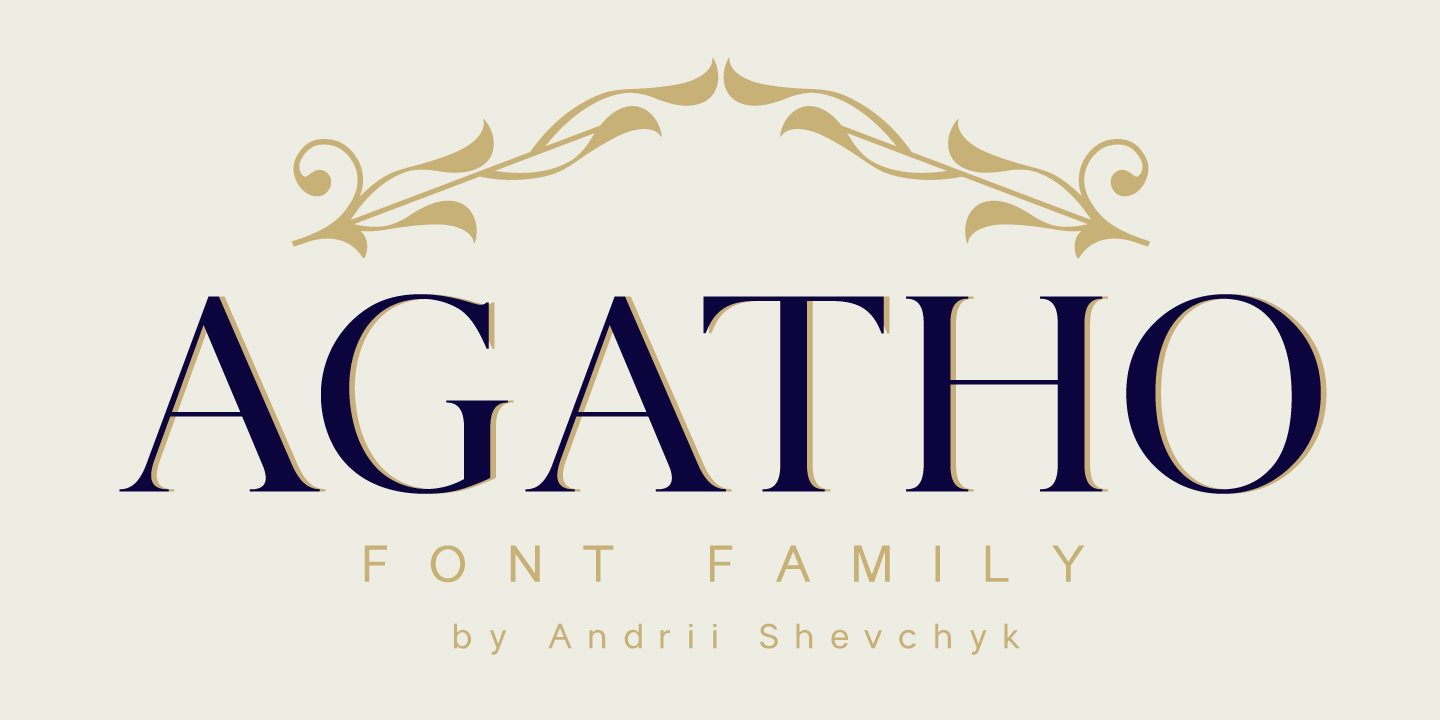
Agatho Font is perfect for philosophical publication designs, classical literature layouts, wisdom-inspired branding, ancient history materials, scholarly manuscript reproductions, contemplative book covers, philosophical journal headers, academic conference programs, spiritual retreat materials, and thoughtful editorial designs.
What makes Agatho Font so exciting is its philosophical elegance that embodies the timeless wisdom and intellectual depth associated with classical learning and contemplative thought. This typeface features refined letterforms with classical proportions and thoughtful construction that evokes the scholarly traditions of ancient philosophy and academic contemplation. The font's wise and sophisticated character communicates intellectual authority and contemplative depth, making it perfect for organizations seeking to establish connections with classical wisdom and appeal to audiences who value thoughtful discourse and the enduring power of philosophical inquiry.
Agatho Font family includes Regular, Bold, Light, and Italic weights, along with classical alternates and scholarly variations. The family also features special character sets including philosophical symbols, classical punctuation, and contemplative decorative elements that enhance the font's connection to wisdom traditions and scholarly discourse themes.
The Agatho Font Free Download package offers designers access to contemplative typography that brings philosophical sophistication to any scholarly project. This thoughtful typeface combines classical design principles with contemporary functionality, creating a powerful visual tool for wisdom-focused brands and contemplative organizations. Whether you're developing philosophical brand identities, designing scholarly publications, or creating contemplative marketing materials, this font provides the wise character needed to communicate intellectual depth and classical learning.
Agatho Font supports comprehensive character sets including Latin alphabets, numbers, punctuation marks, and special philosophical symbols. The font's thoughtfully balanced spacing reflects contemplative rhythm while ensuring excellent readability across all scholarly applications. Its OpenType features include contextual alternates, classical ligatures, and philosophical decorative elements that expand creative possibilities for wisdom-focused design projects.
Professional designers choose Agatho Font for projects requiring authentic philosophical appeal and classical wisdom aesthetics. The font excels in applications where intellectual depth and contemplative character are essential, offering the perfect solution for brands seeking to communicate wisdom, scholarly authority, and connection to philosophical traditions. Its contemplative character makes it ideal for academic institutions, philosophical societies, and wisdom-focused organizations.
The Agatho Font Free Download provides creative professionals with an exceptional opportunity to explore philosophical typography. With its wise character variations, classical design elements, and contemplative quality, this font represents outstanding value for designers, scholarly organizations, and creative agencies specializing in wisdom-focused visual communications that celebrate intellectual depth and the timeless tradition of philosophical inquiry and classical learning excellence.